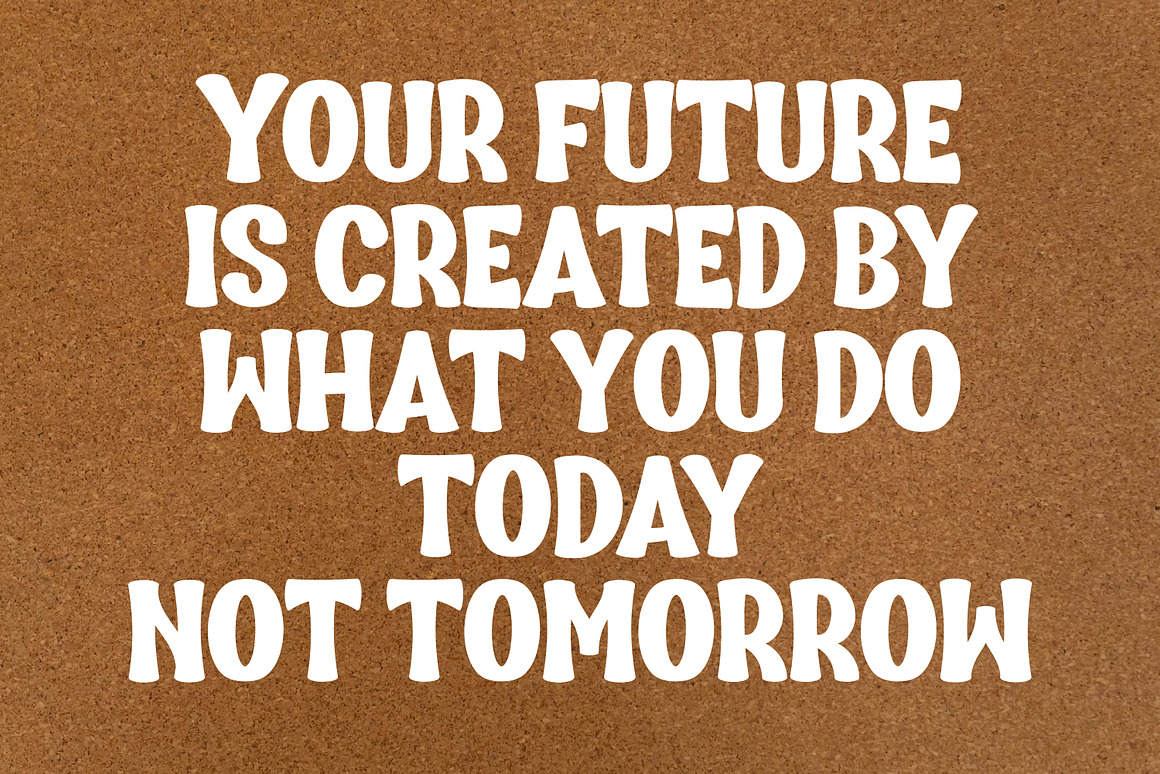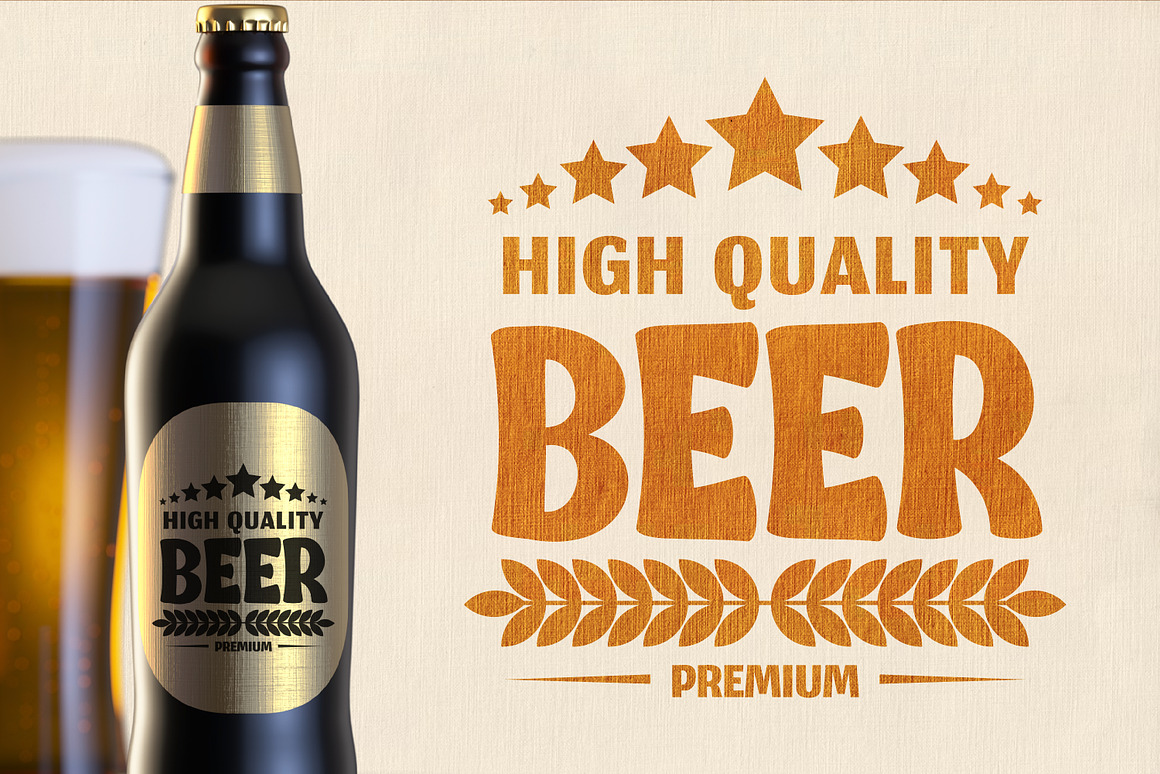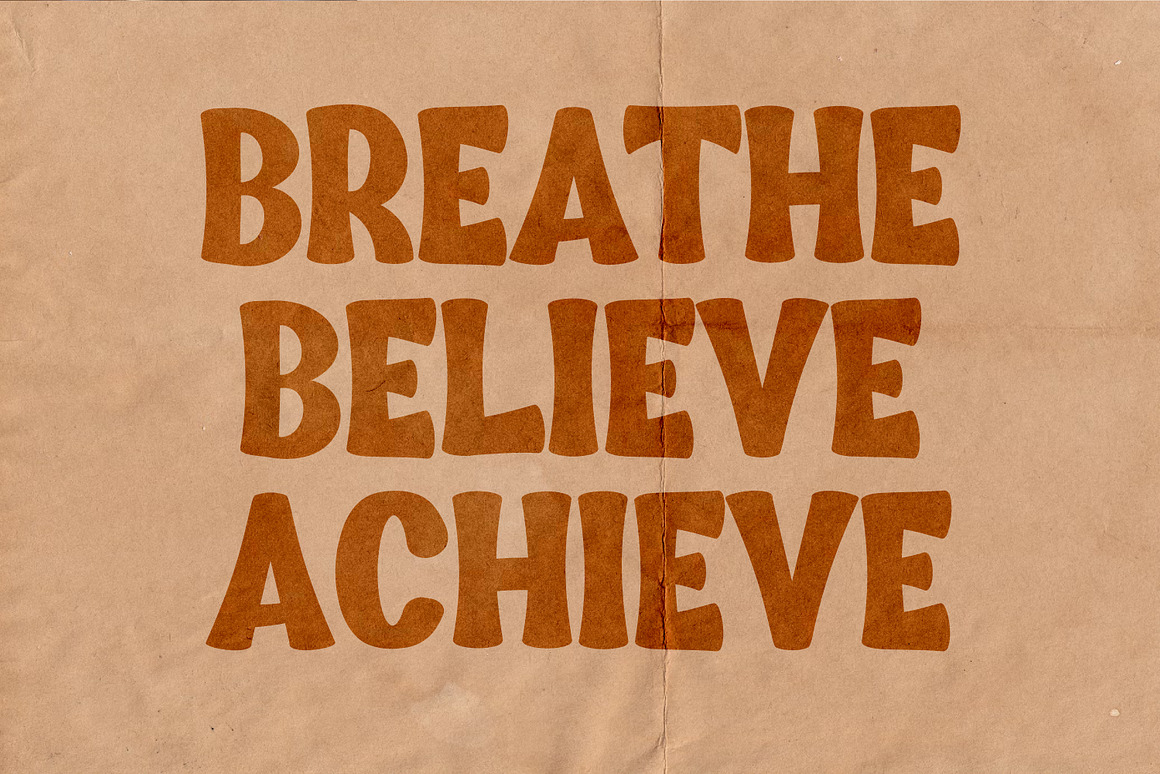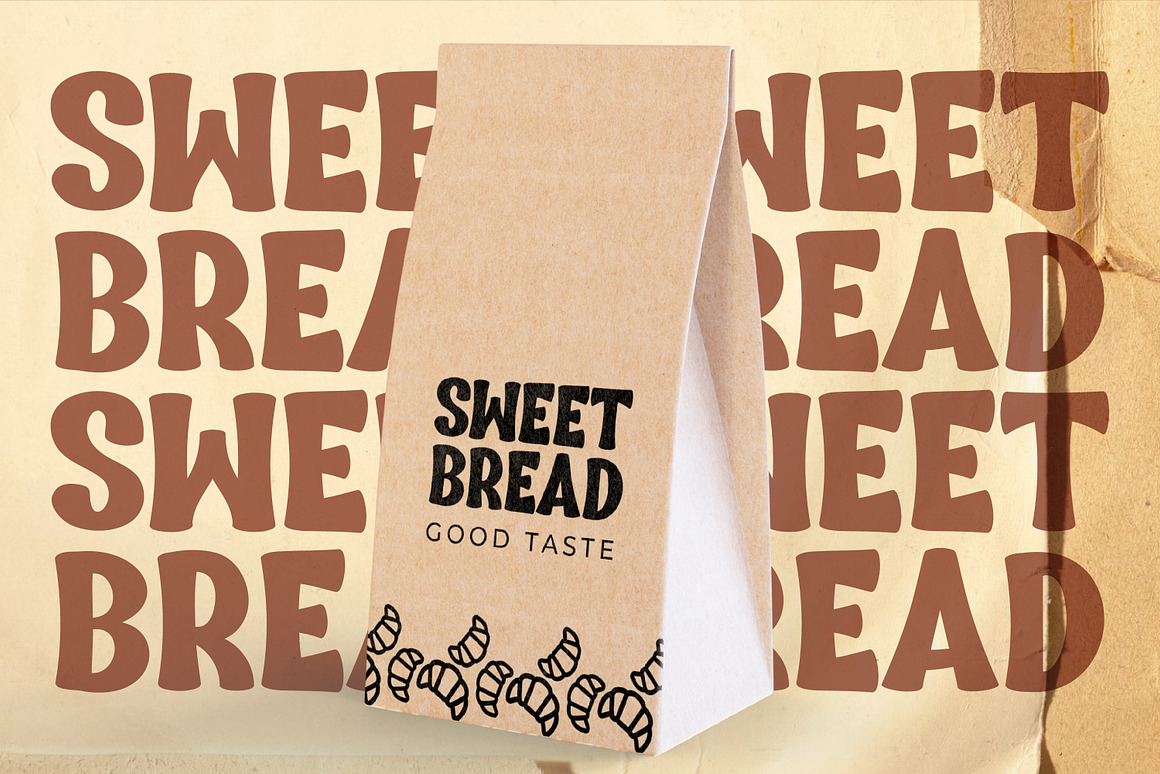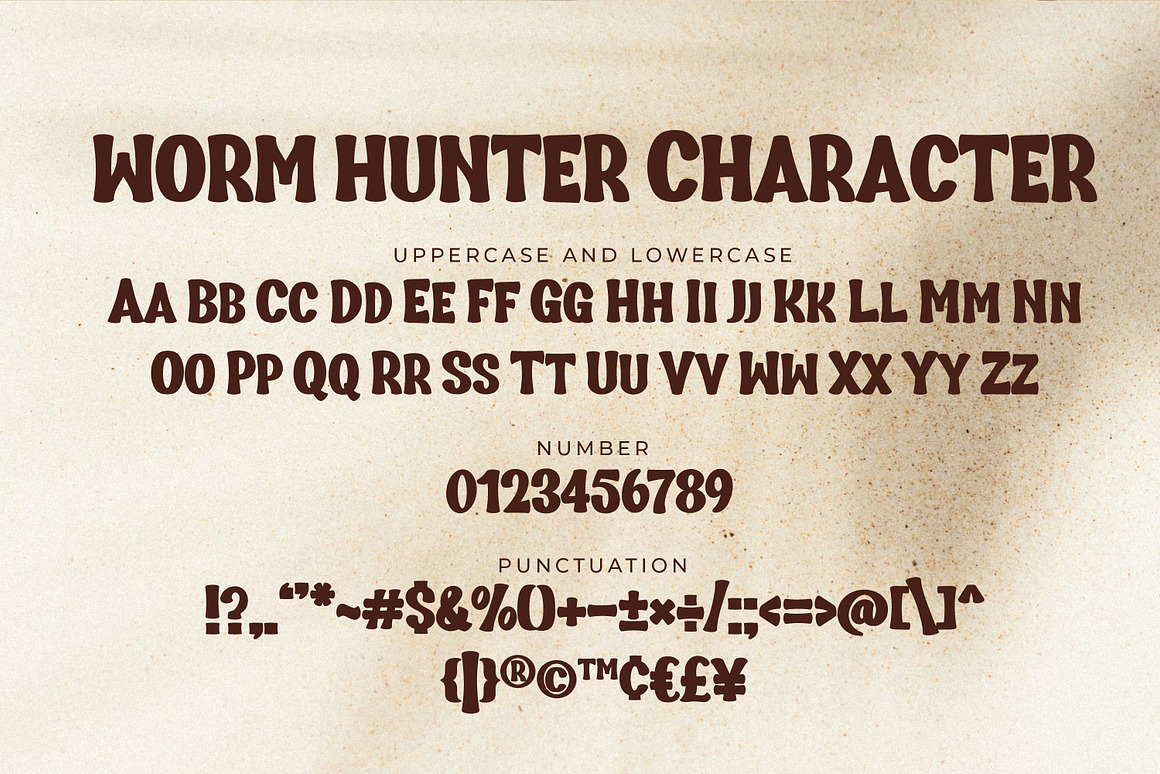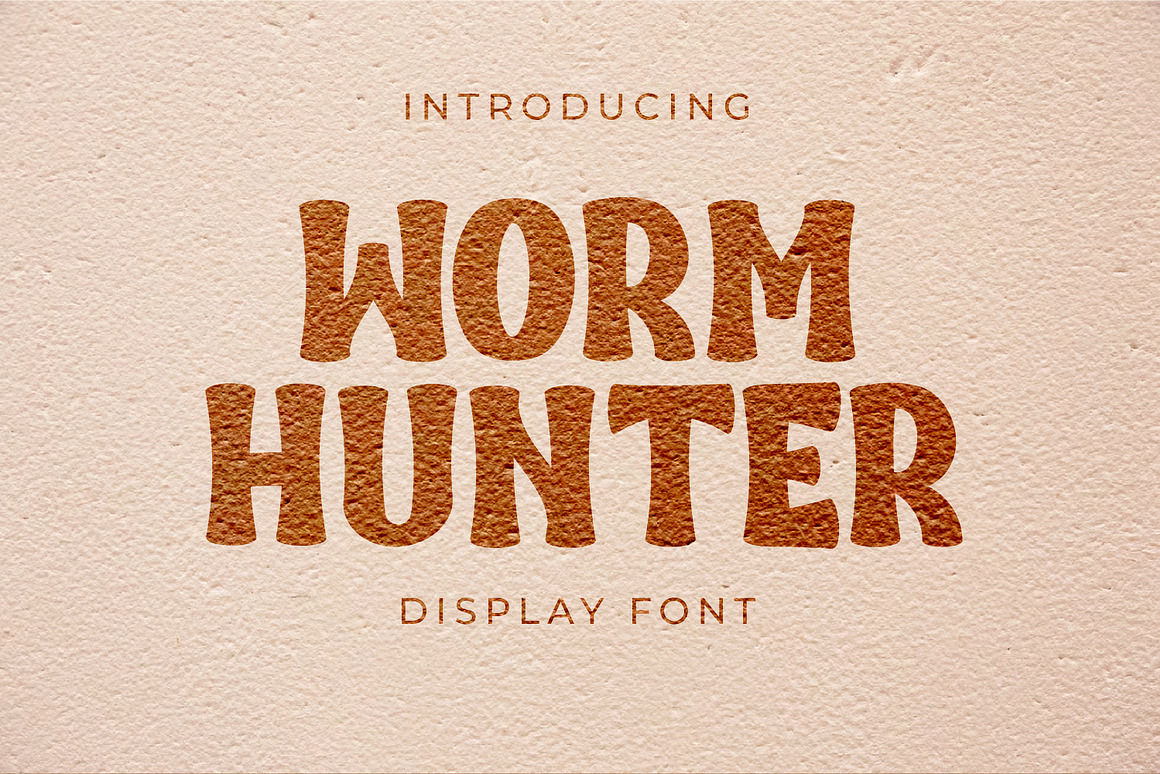
Worm Hunter Bold Display Font
Introducing Worm Hunter The bold and adventurous display font that dares to stand out! With its striking, eye-catching design, Worm Hunter is perfect for projects that demand attention and create excitement—think posters, branding, packaging, and anything that needs a vibrant flair.